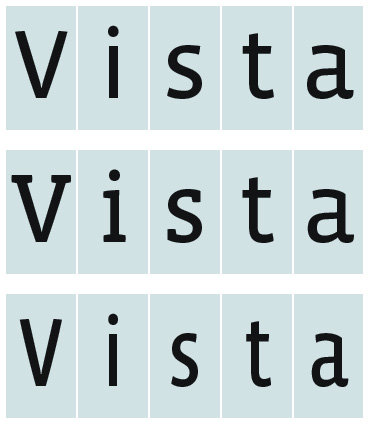
Vista Slab + Vista Sans Narrow (Emigre)
Emigre is proud to announce the Slab and Sans Narrow additions to the Vista family. Xavier Dupré designed Vista Sans in 2004, with the intent to create a typeface family for text and display that would combine the humanist appeal of calligraphic forms with the pragmatic simplicity of the sans. Now, the Slab and Sans Narrow additions add even more versatility to the Vista family, extending it to a total of 108 fonts.